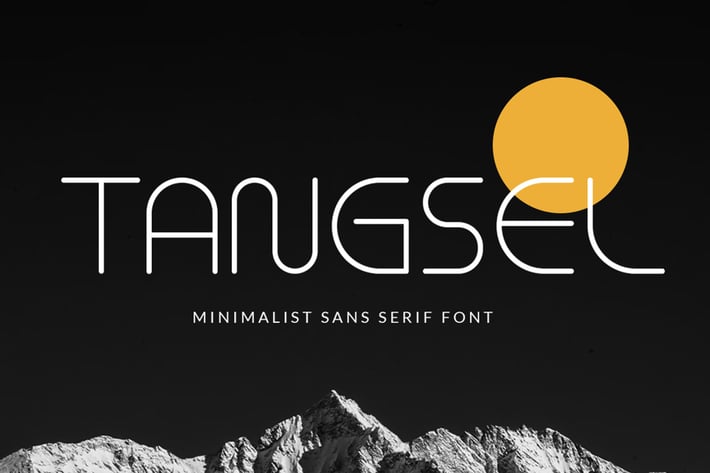
Tangsel - Minimal font
Tangsel Sans serif is a clean and minimal sans serif font. It’s the ideal font for adding romance & charm to your next design projects!